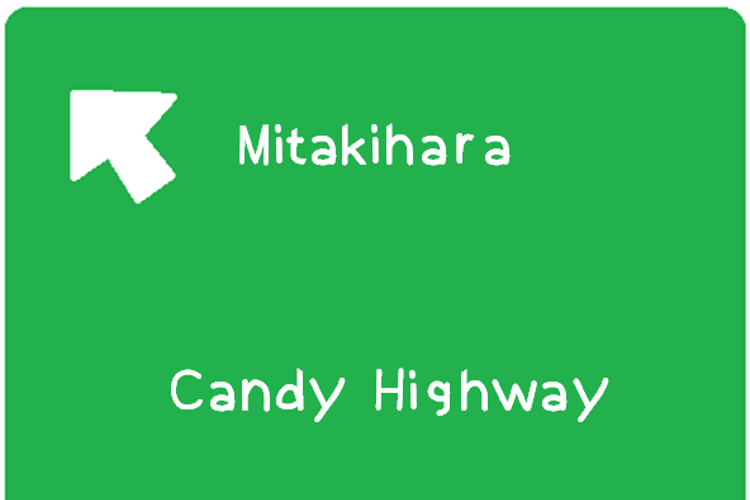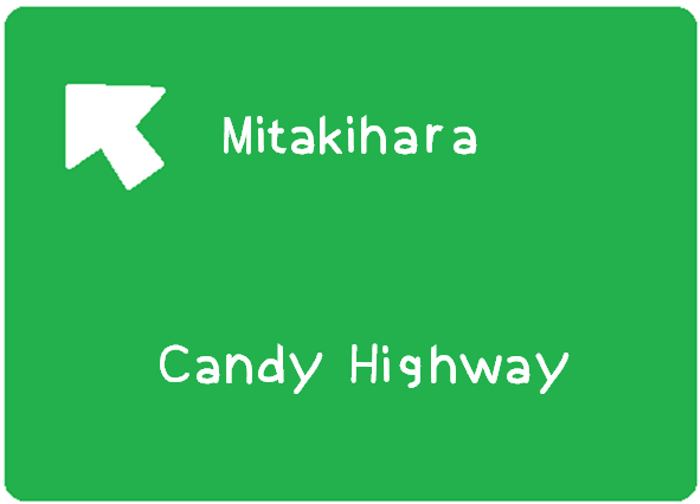
Candy Highway Font
Candy Highway is based off the Highway Gothic(formally known as FHWA Series fonts) I've been created with Fonty.
Update: Backslash and arrows added(plus the sign of Euro).